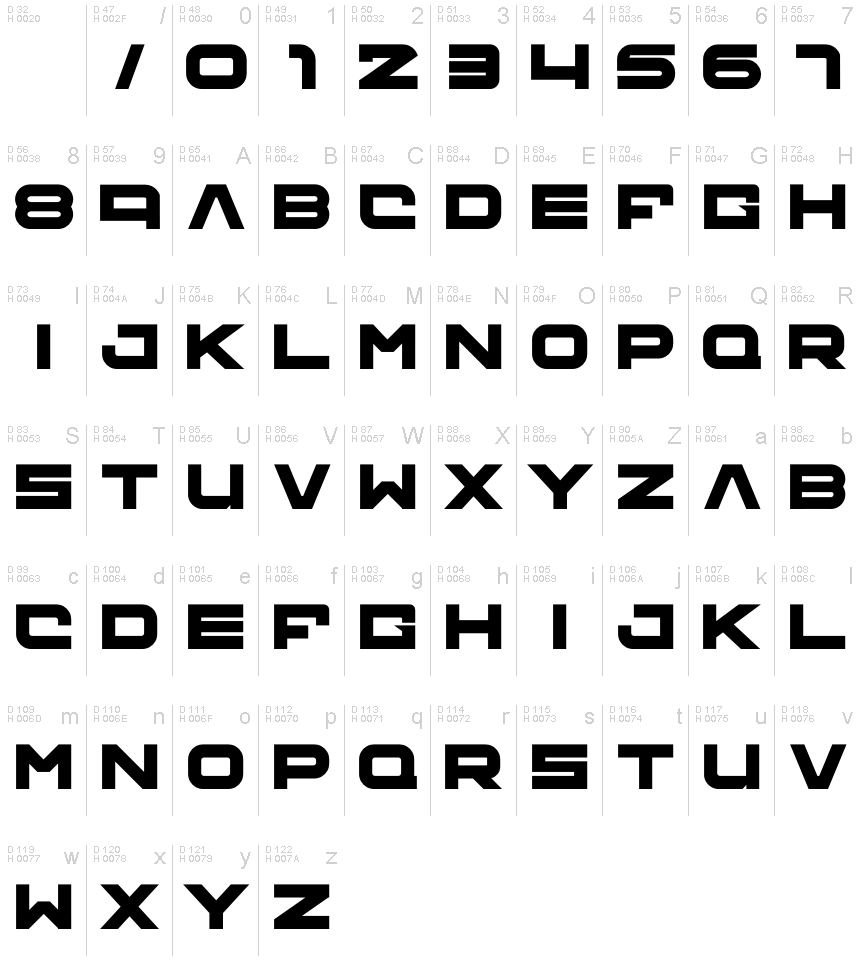
Airnt Bold
Airnt Bold emerges as a striking display font within the Airnt family, designed by Sesohq. Its bold and expanded characters exude a techno vibe that is both futuristic and urban, capturing the essence of modernity with a nod to the designer's past creations like Quantum. This font's strong presence commands attention, making it an excellent choice for headlines, branding projects, and any design that seeks to make a statement.
With its clean lines and impactful style, Airnt Bold is perfect for innovative advertising campaigns, forward-thinking editorial work, or any digital platform aiming to stand out in a crowded visual landscape. It pays homage to its predecessors while confidently paving the way for new creative explorations.